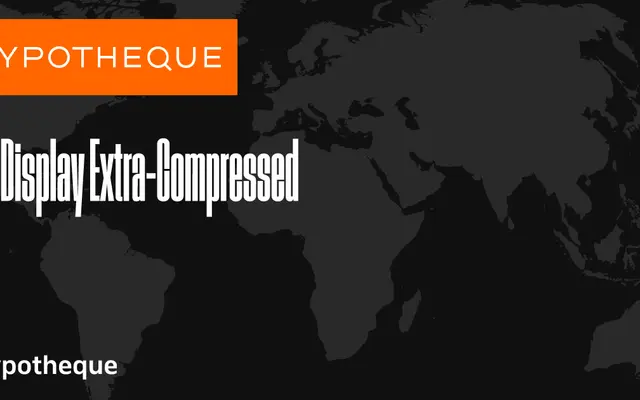
Zed Display Extra-Compressed
One width variant within an exceptionally large type system spanning nine widths, three optical subfamilies and nine weights, with slanted and backslanted styles throughout.
Zed Display Extra-Compressed is the most tightly set cut in the Zed Display subfamily, part of a system that stretches from Extra-Compressed to Extra-Wide across Display, Round and Text optical variants. Each width offers nine weights from Hairline to Black, each with upright, slanted and backslanted styles, named after cities. The system also includes a variable font and an icons subfamily, making Zed one of the most architecturally ambitious type systems available from a European foundry.
Zed is a display-oriented geometric sans with an extensive width axis; the Extra-Compressed cut is the most condensed variant in the Display subfamily, designed for headlines and large-scale typesetting.